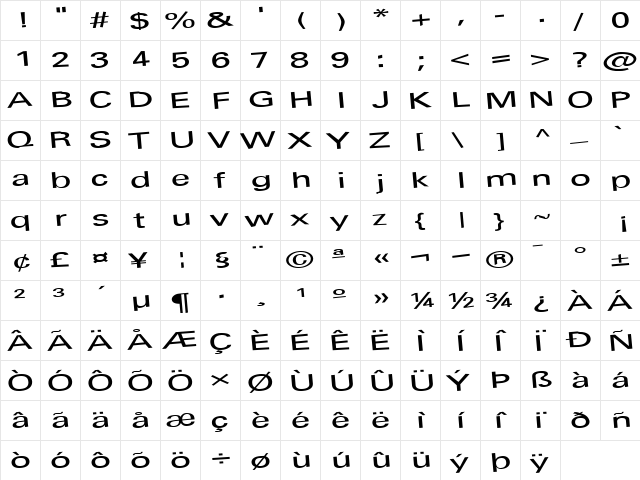
Barn Regular Font Preview
Barn Regular
Barn Regular Font Details
Design Context for Barn Typeface
Barn is a composed and adaptable typeface that performs quietly and consistently across a wide range of design contexts.